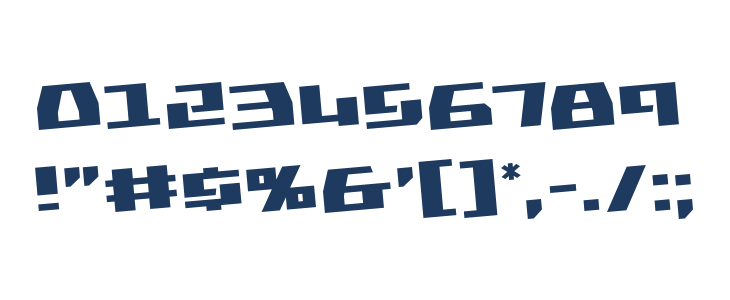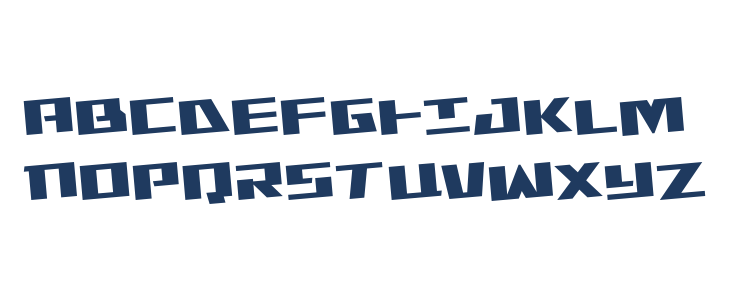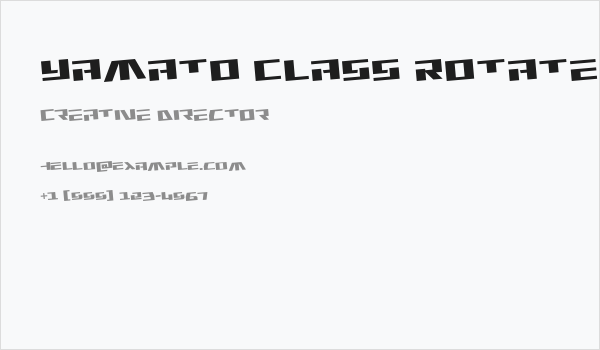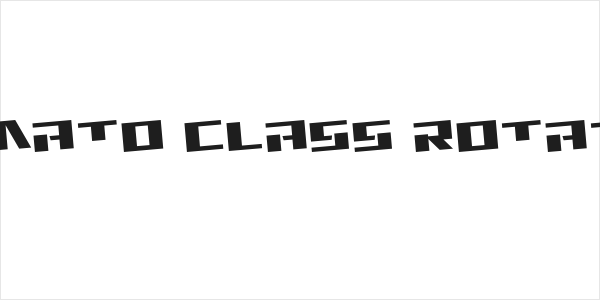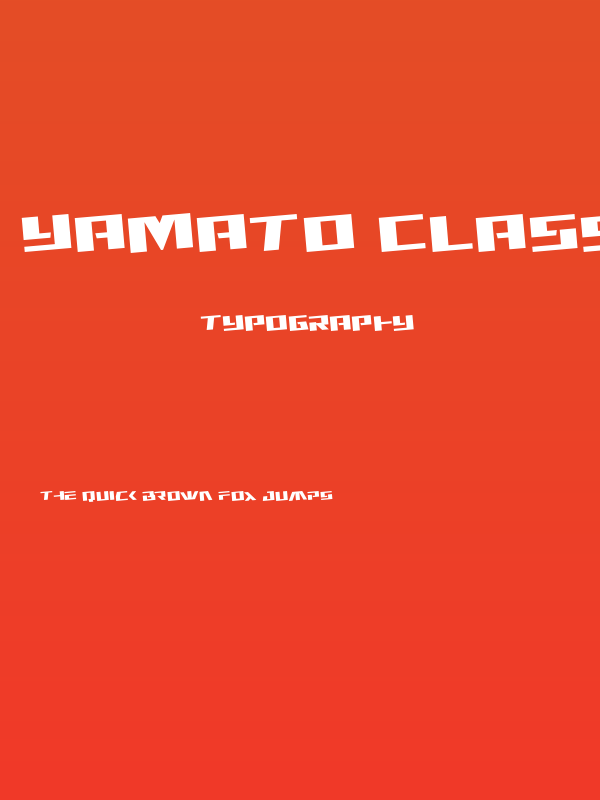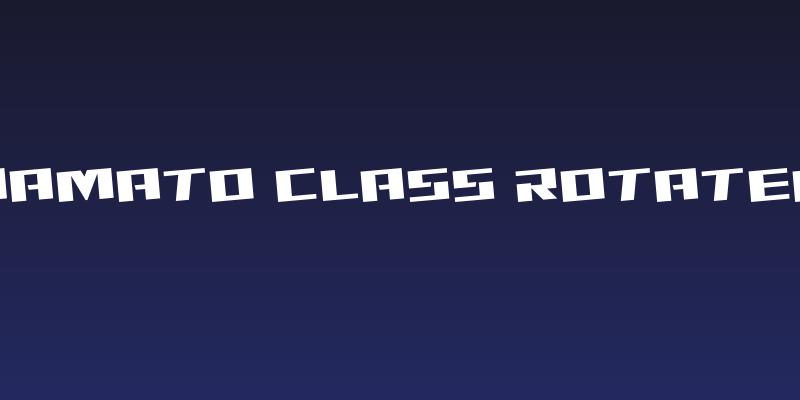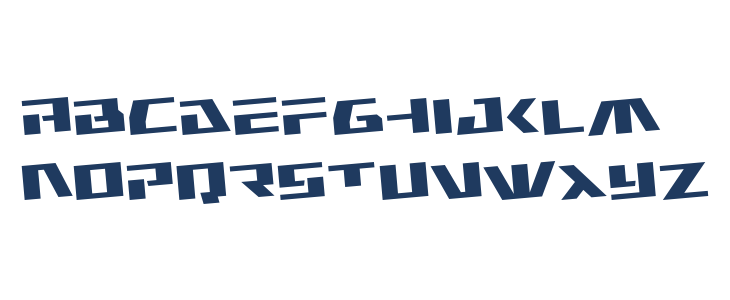
Yamato Class Rotated Font
Yamato Class Rotated Description
A bold, angular, geometric display typeface with a strong, futuristic appearance. The characters are constructed from thick, blocky shapes with sharp edges and a consistent slant, giving a sense of motion and aggression. The font features uniform stroke thickness and minimal curves, emphasizing a mechanical and industrial aesthetic.
| Overall Style | Futuristic, Industrial, Decorative |
| Use Case | Headlines, Logos, Posters, Signage |
| Proposed Projects | Video game titles, sci-fi posters, branding for tech or industrial products, event flyers, signage, or any project needing a strong, impactful presence. |